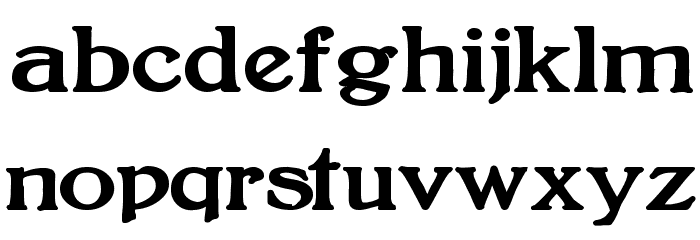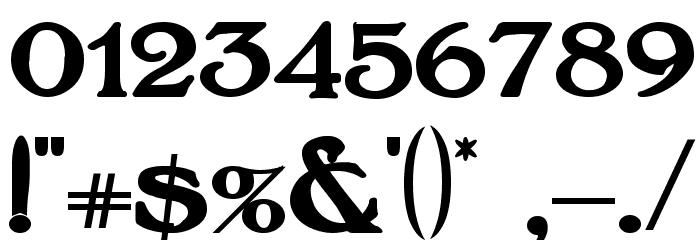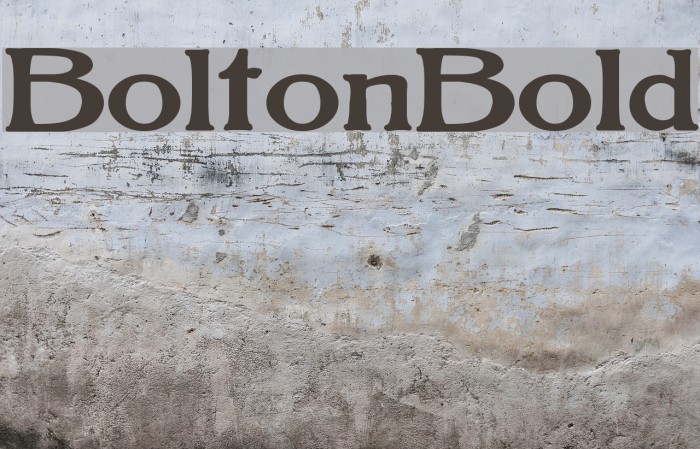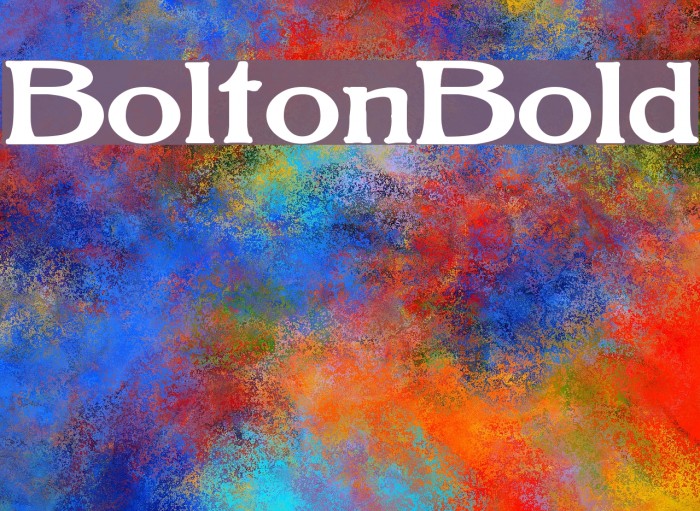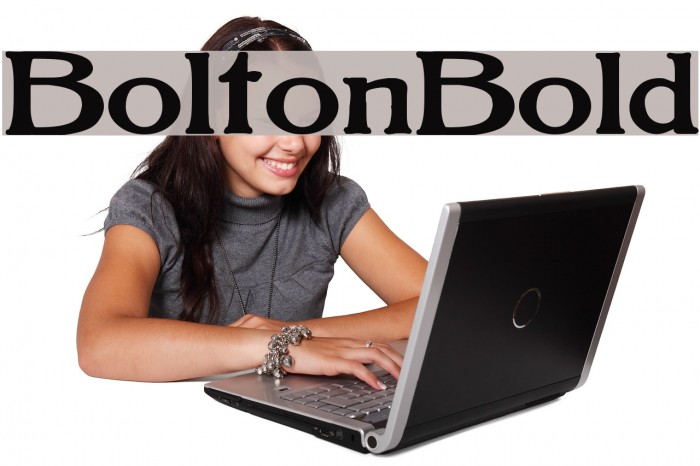
BoltonBold Font
This font features a bold and dynamic style with a strong presence. The uppercase letters are characterized by their thick strokes and slight curves, giving them a robust and authoritative appearance. The lowercase letters maintain a consistent weight, offering a harmonious flow with a touch of elegance. Numbers are equally bold, ensuring readability and impact. Special characters are designed with the same boldness, making them stand out effectively. The overall design is suitable for making statements, with a modern yet slightly vintage feel.
A bold, dynamic font with strong, slightly curved strokes and a modern vintage feel.
- Proposed Projects: Ideal for branding, headlines, posters, and any project requiring a bold statement.
- Overall Style: Modern Vintage